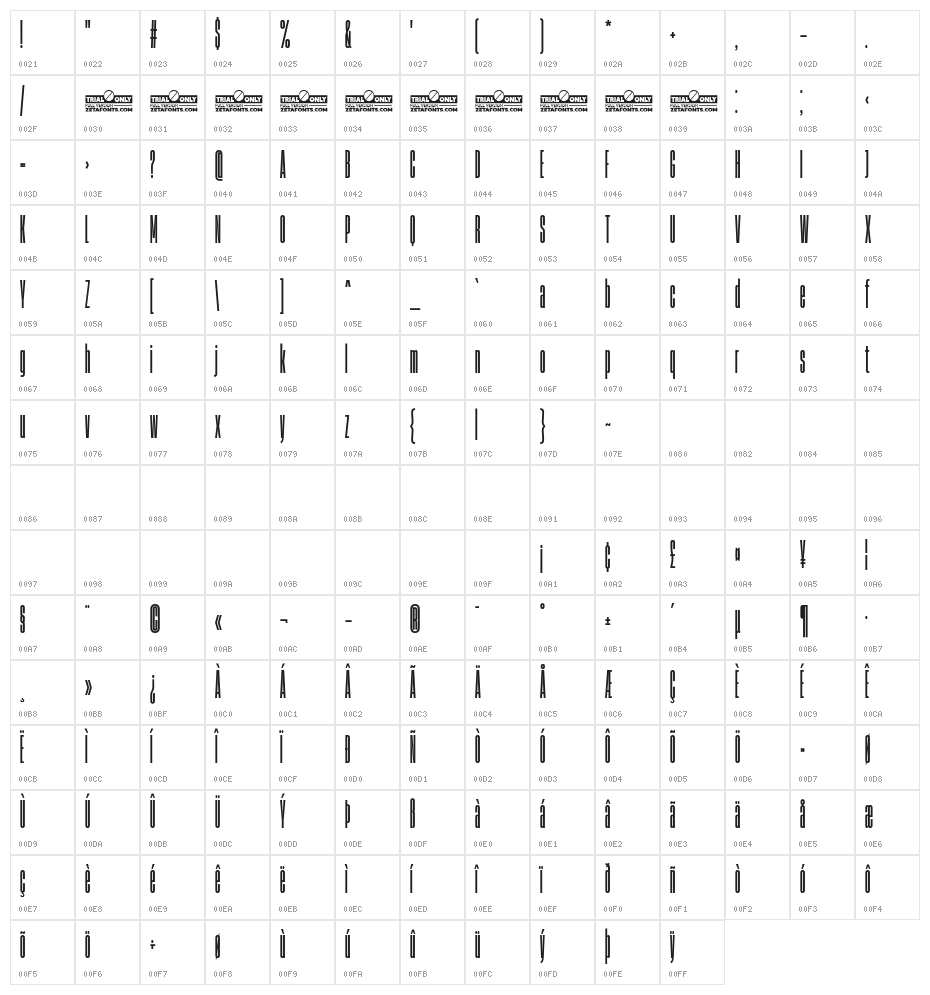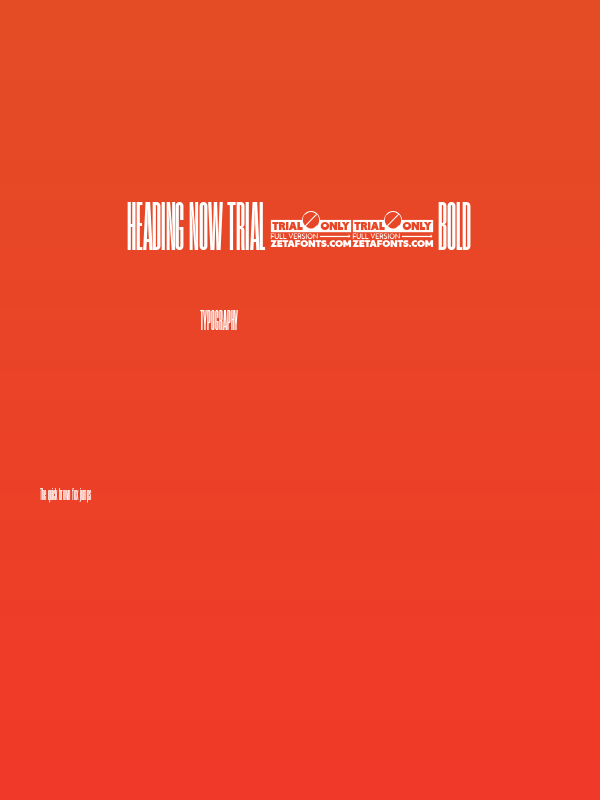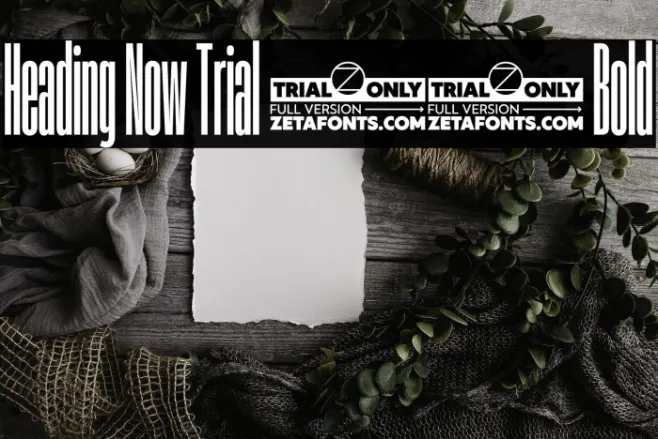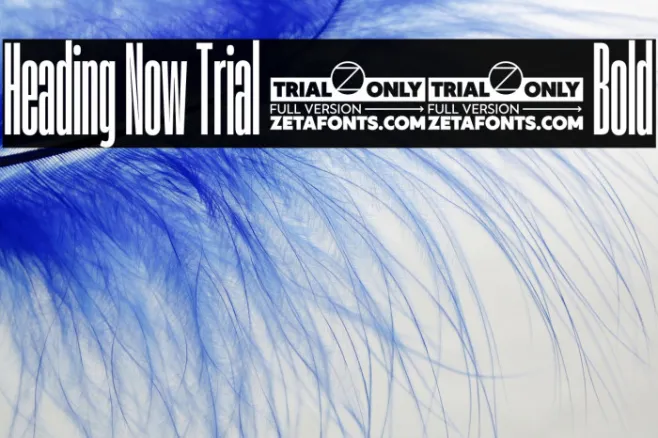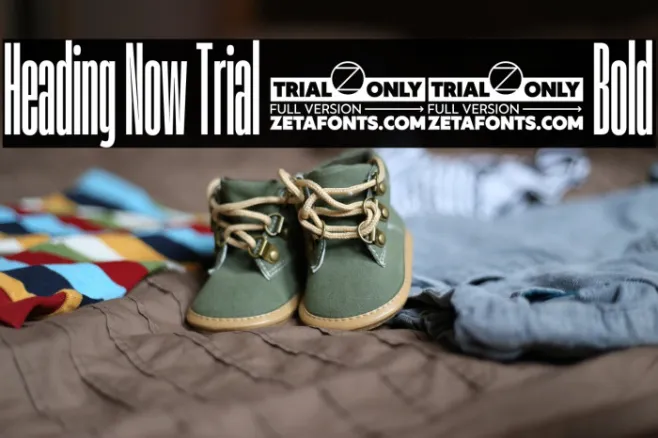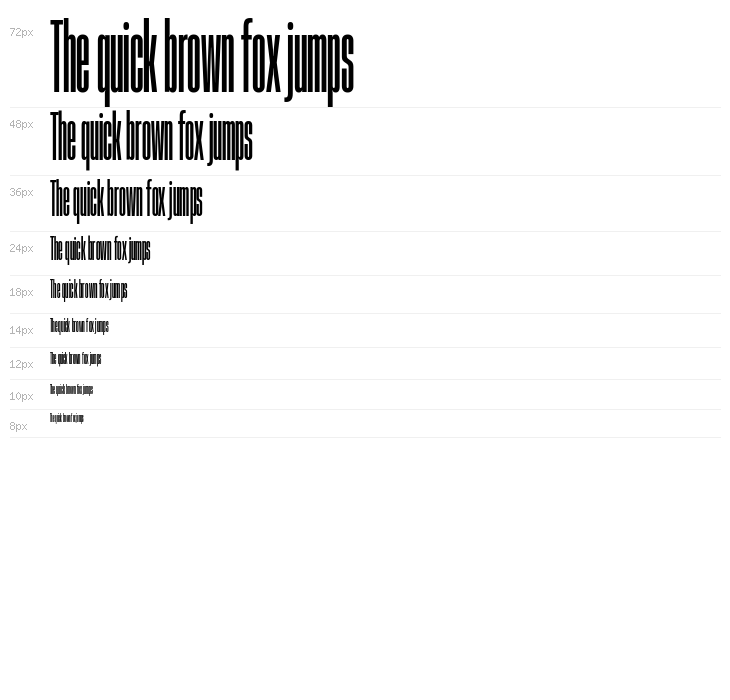
Heading Now Trial 06 Bold Font
Heading Now Trial 06 Bold Description
This font exhibits a bold and modern aesthetic with a condensed width, making it ideal for impactful headlines and attention-grabbing designs. The uppercase and lowercase letters are tall and narrow, with a consistent stroke weight that emphasizes verticality. The characters are tightly spaced, enhancing the condensed appearance. The font includes a full set of uppercase and lowercase letters, numbers, and a variety of special characters, making it versatile for various design needs. Its clean lines and lack of serifs contribute to a contemporary and sleek look, suitable for modern branding and editorial projects.
| Proposed Projects | Ideal for headlines, posters, branding, and editorial design where a strong visual impact is desired. |